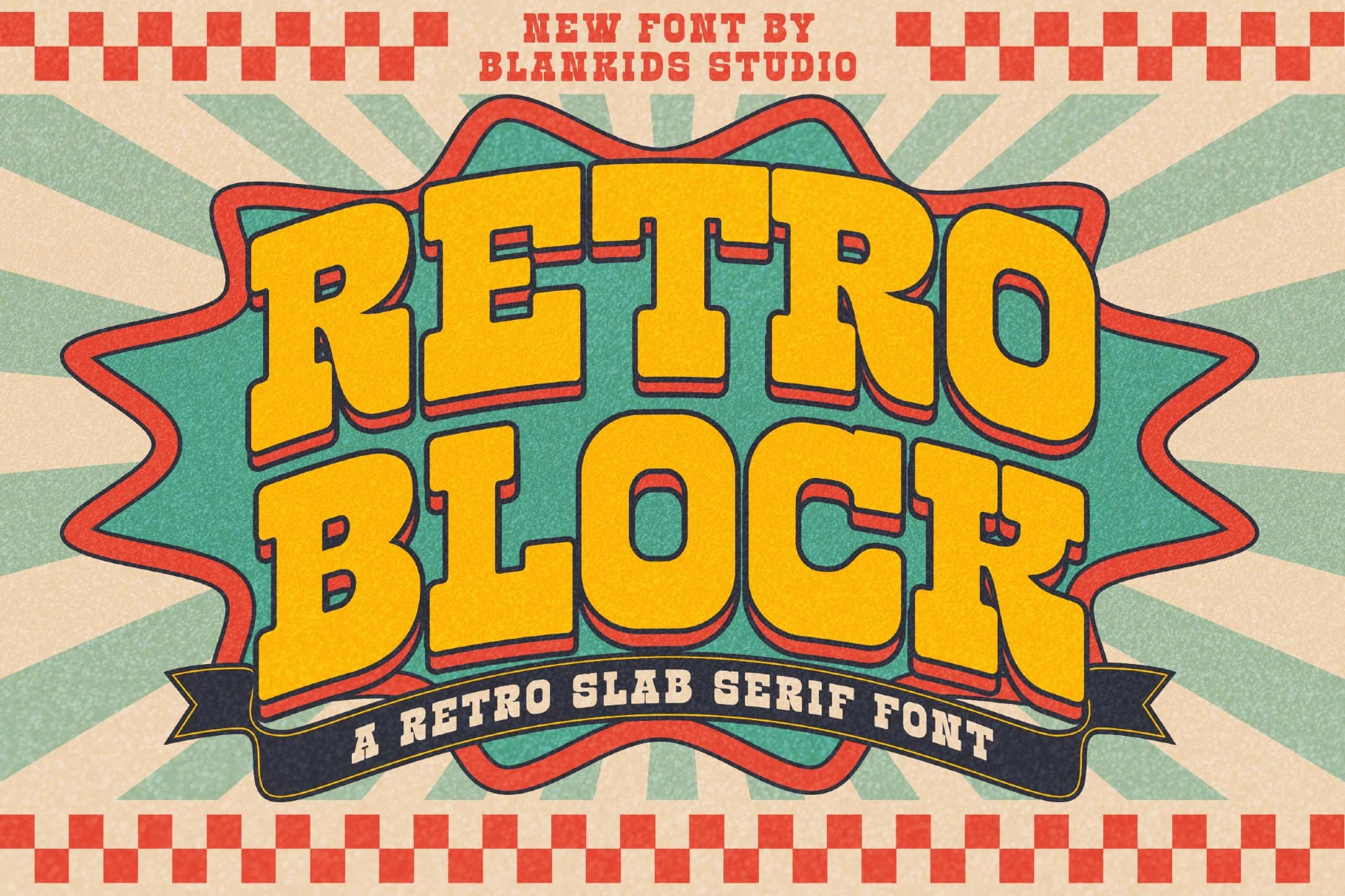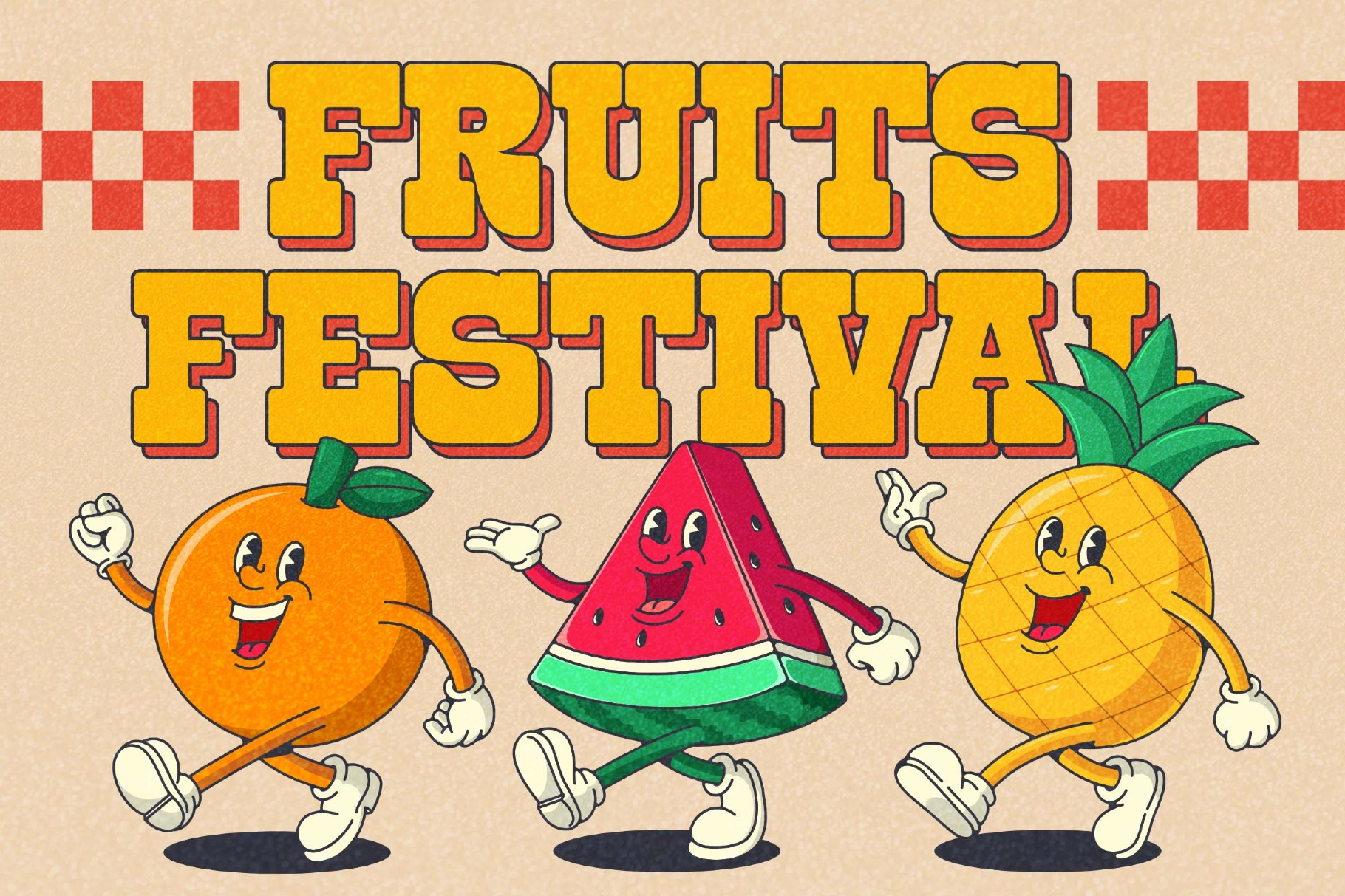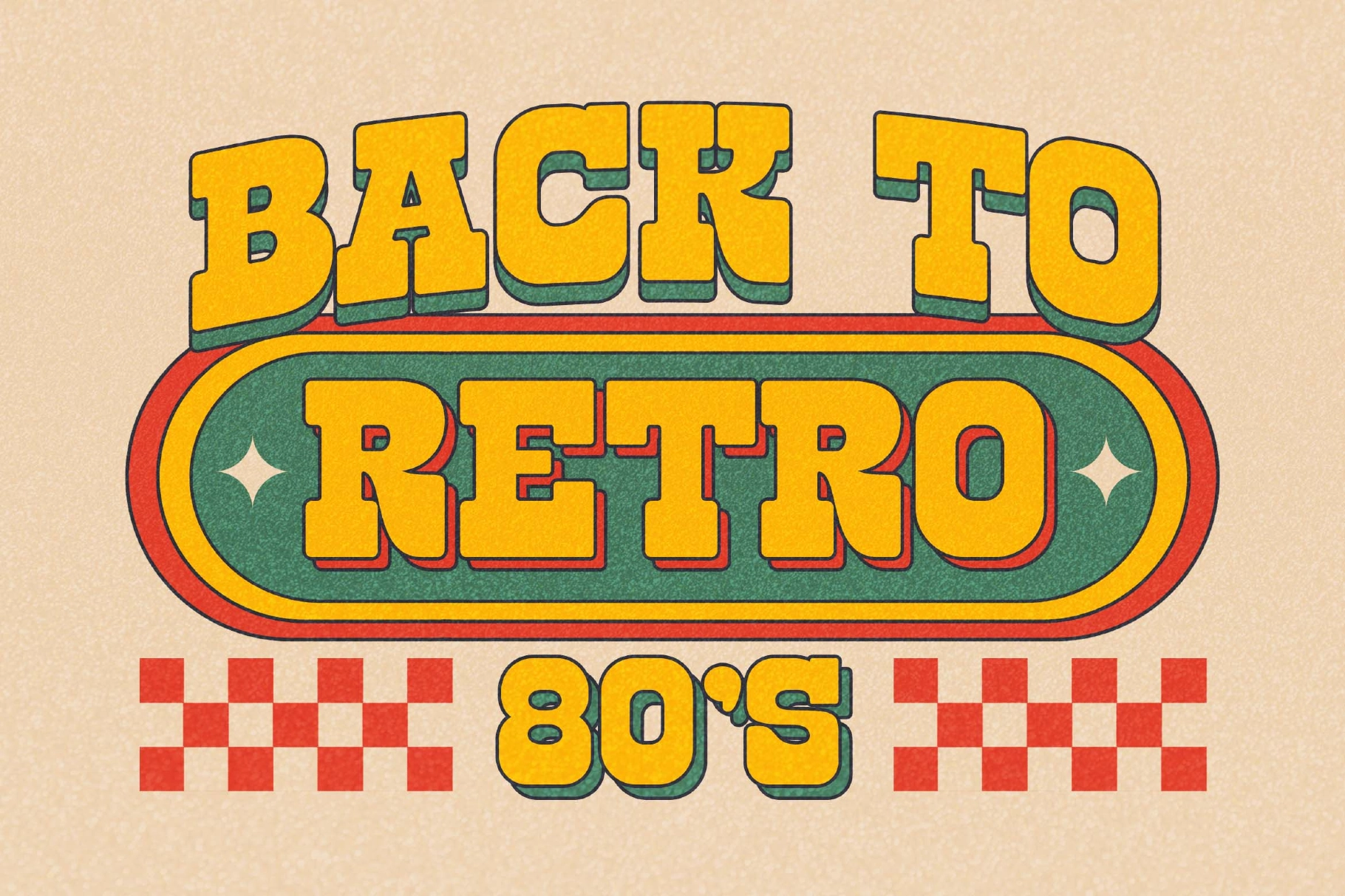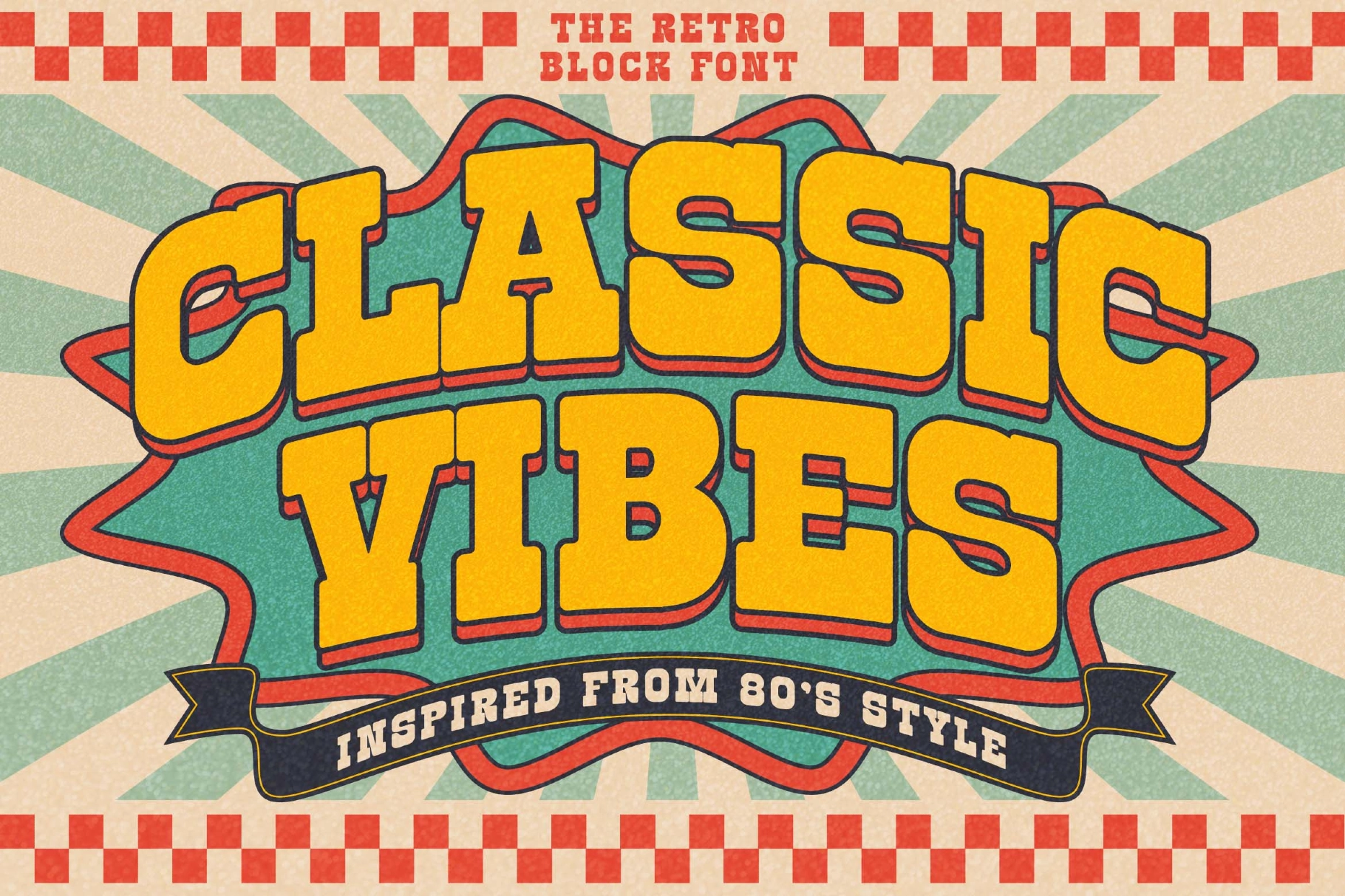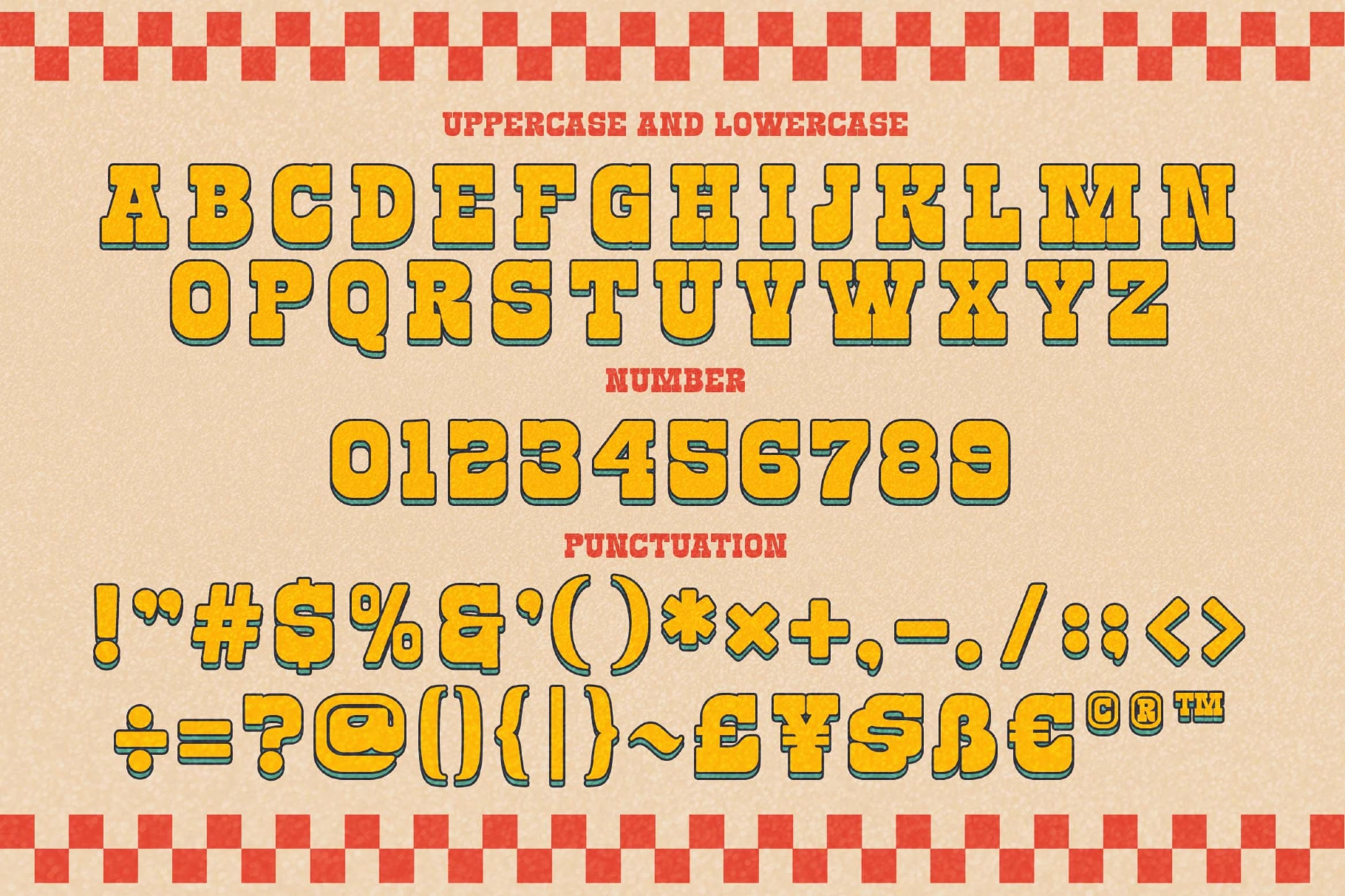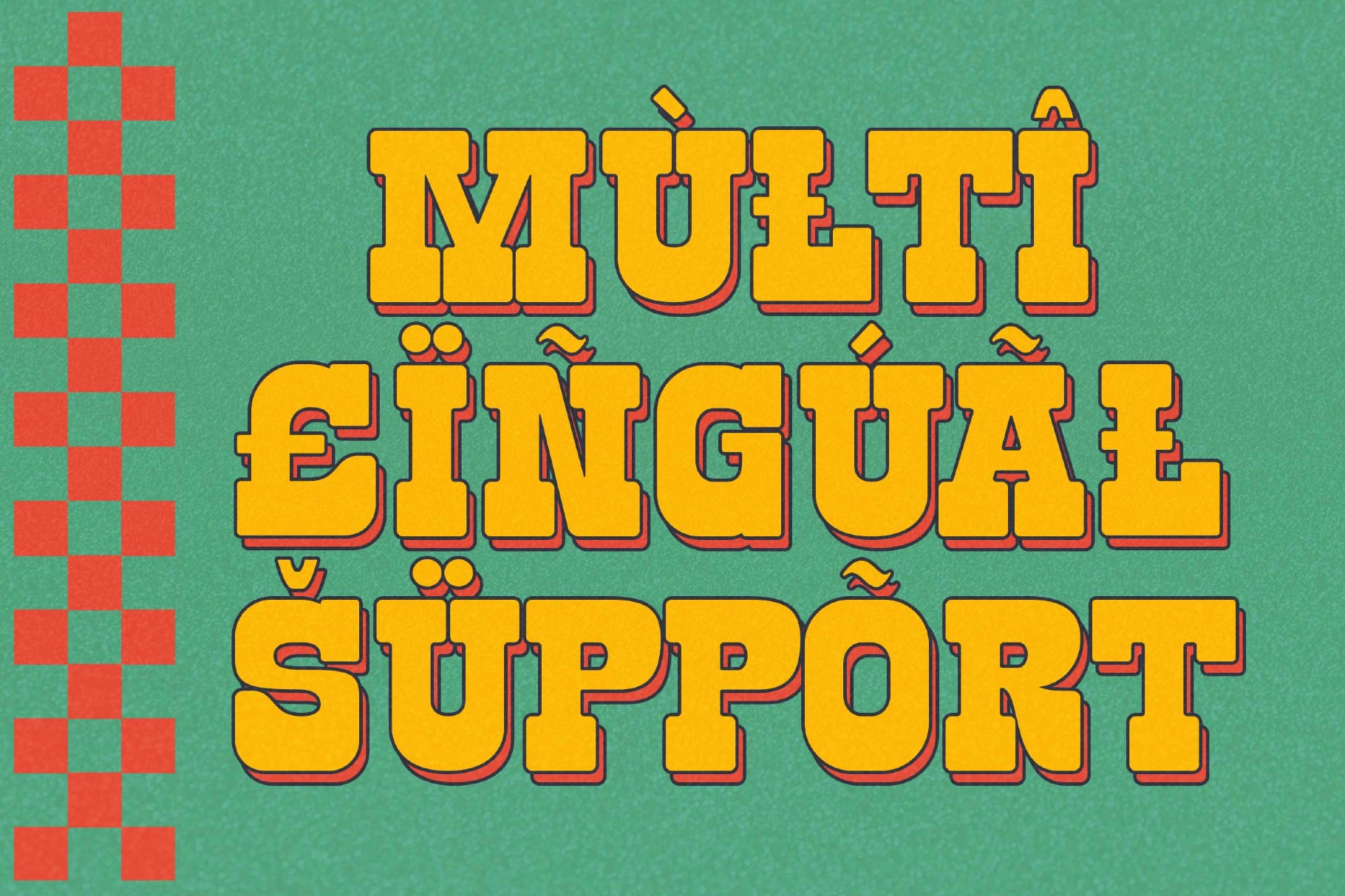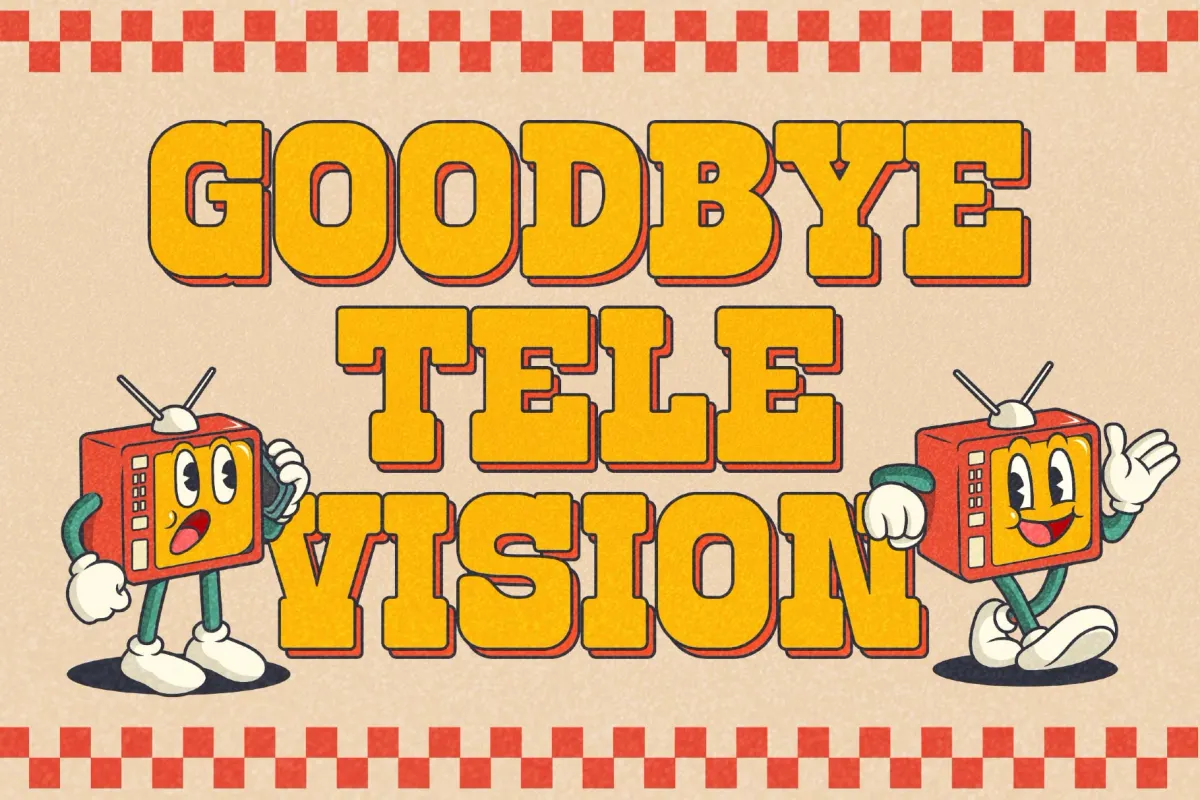
Retro Block a Retro Slab Serif Font
Retro Block – A Retro Slab Serif Font is crafted for bold professional branding projects that demand a strong vintage presence. Perfect for logotypes, posters, packaging, promotions, merchandise, and retro-inspired visual identities, this typeface brings playful 80s charm with confident slab serif structure.
Each letter is designed with thick block forms, layered shadows, and nostalgic color-ready shapes that instantly evoke classic diner signage, arcade titles, and old-school advertising. Whether you’re building a standout logo or eye-catching headline, Retro Block delivers personality and impact.
The font includes a complete set of uppercase and lowercase characters, numerals, and punctuation—giving you full creative flexibility for display typography.
• Retro Slab Serif Style
• Bold Block Letterforms
• Numerals & Punctuation
• Strong Display Character
• Perfect for Logos & Headlines
• Vintage 80’s Inspired Look